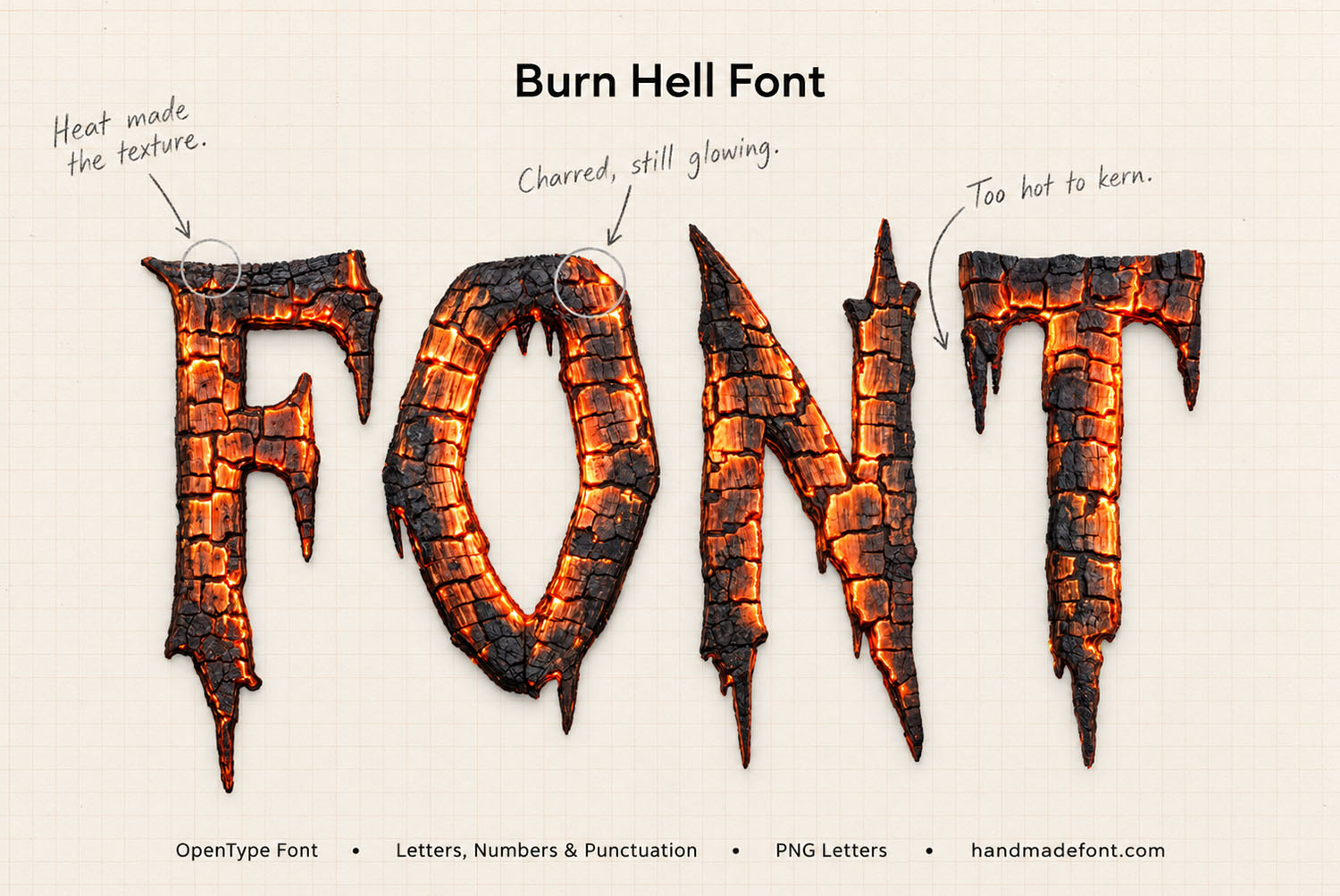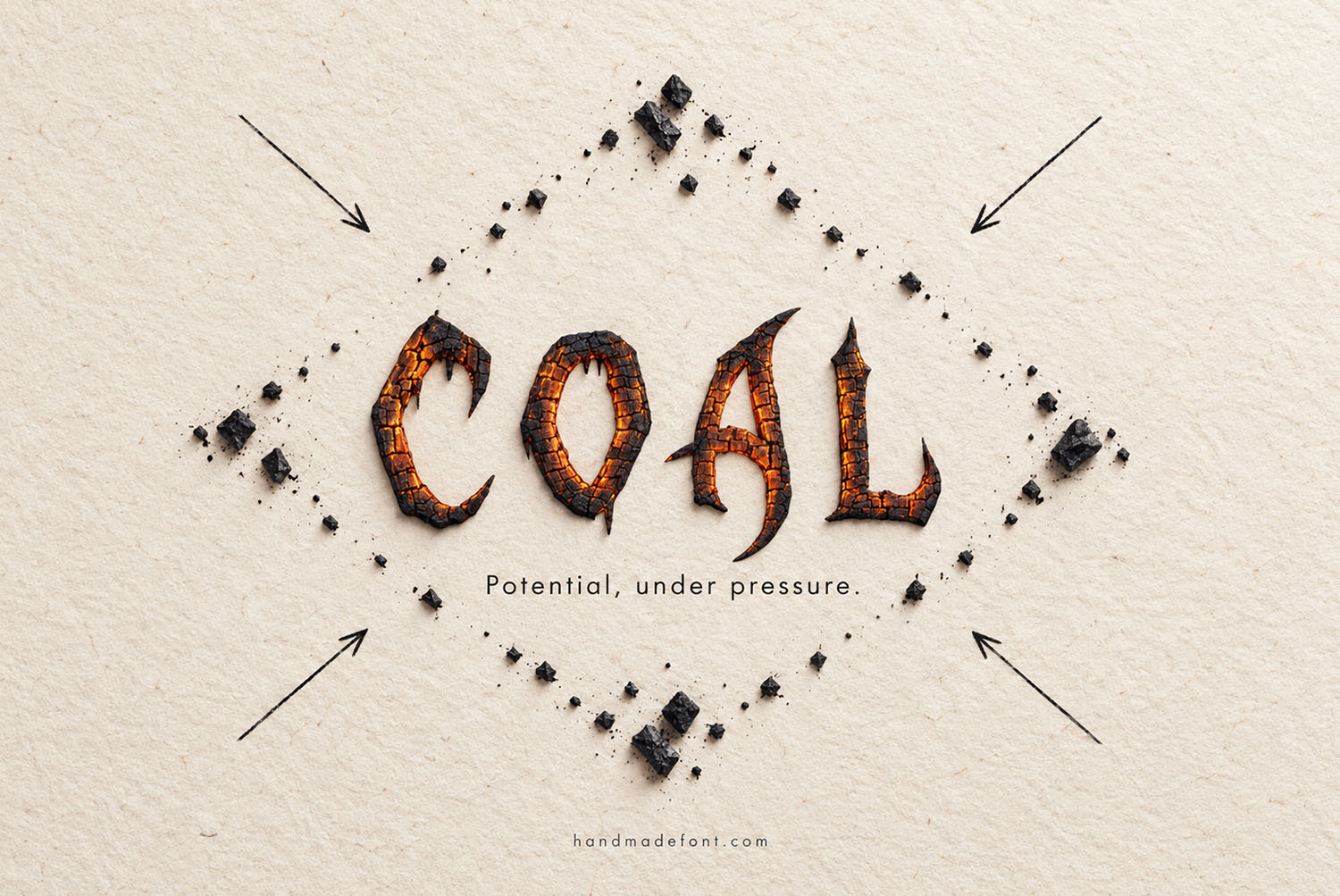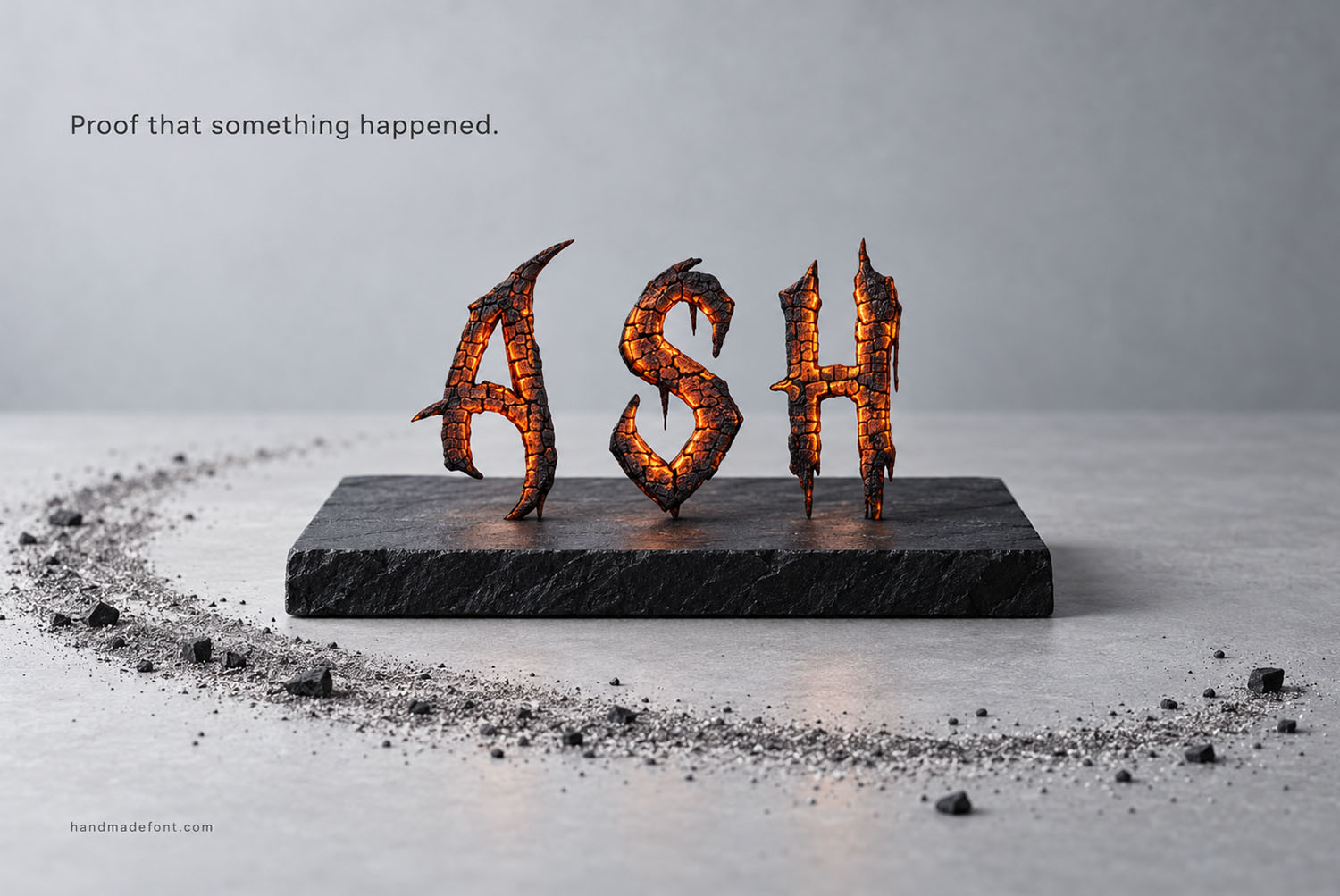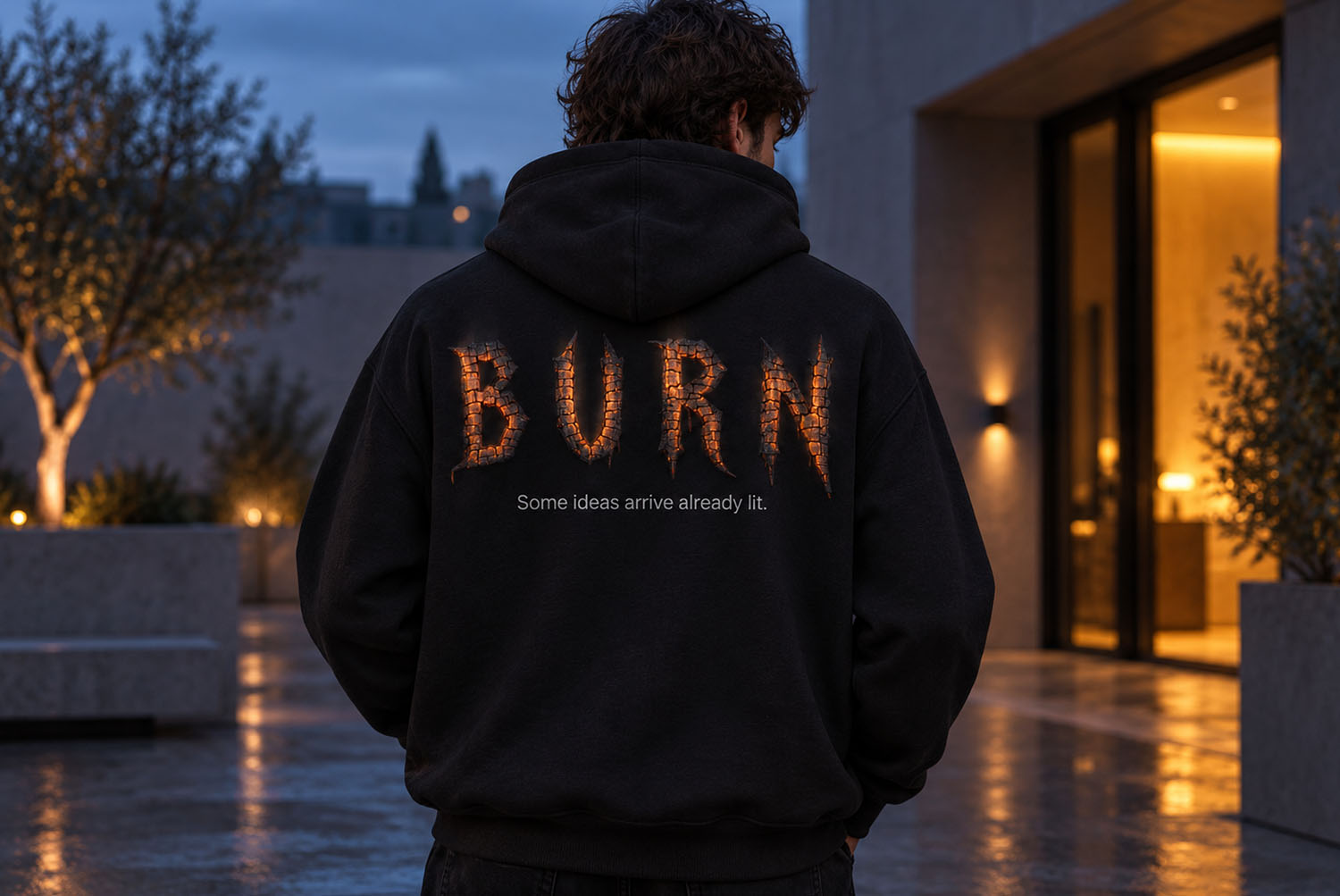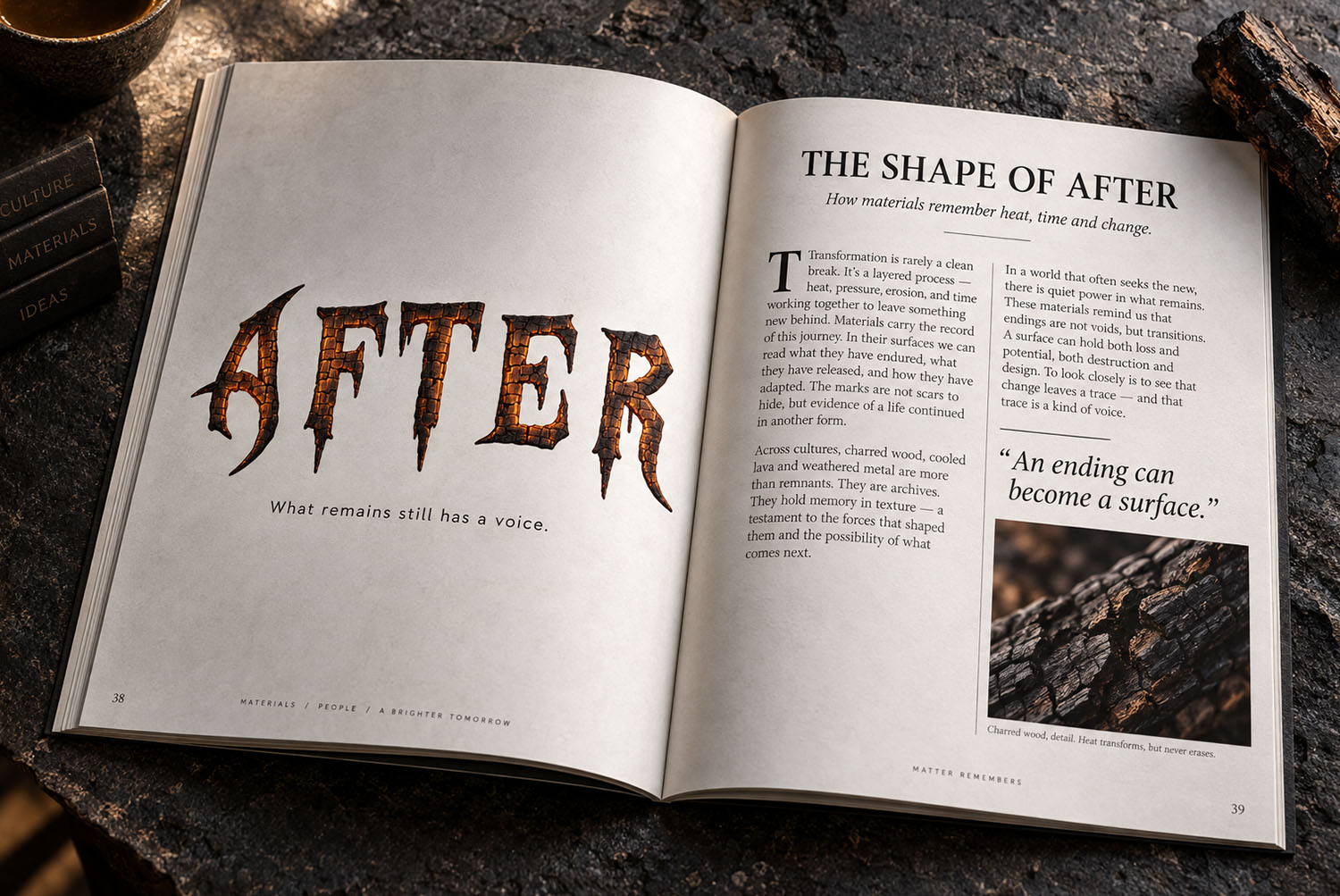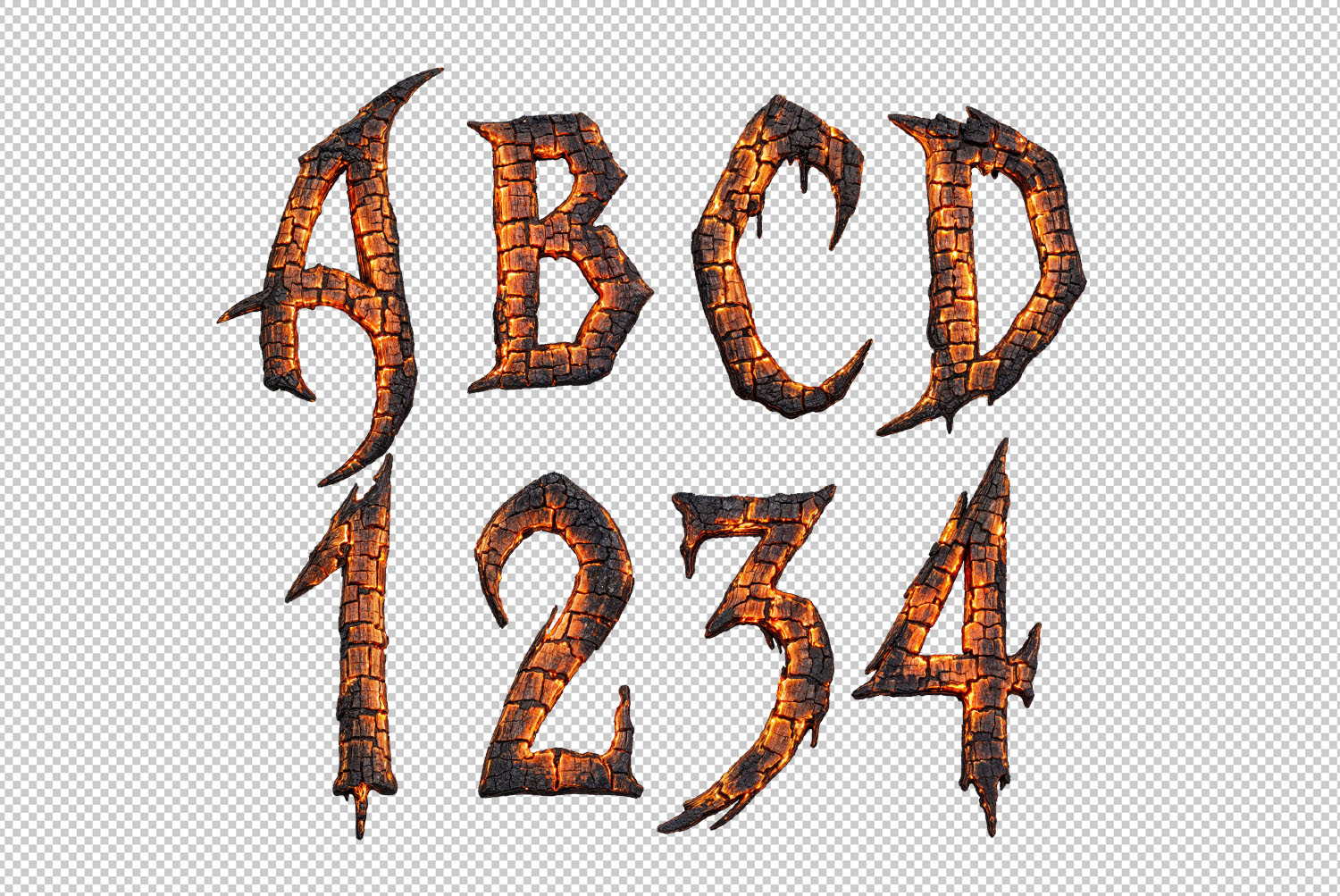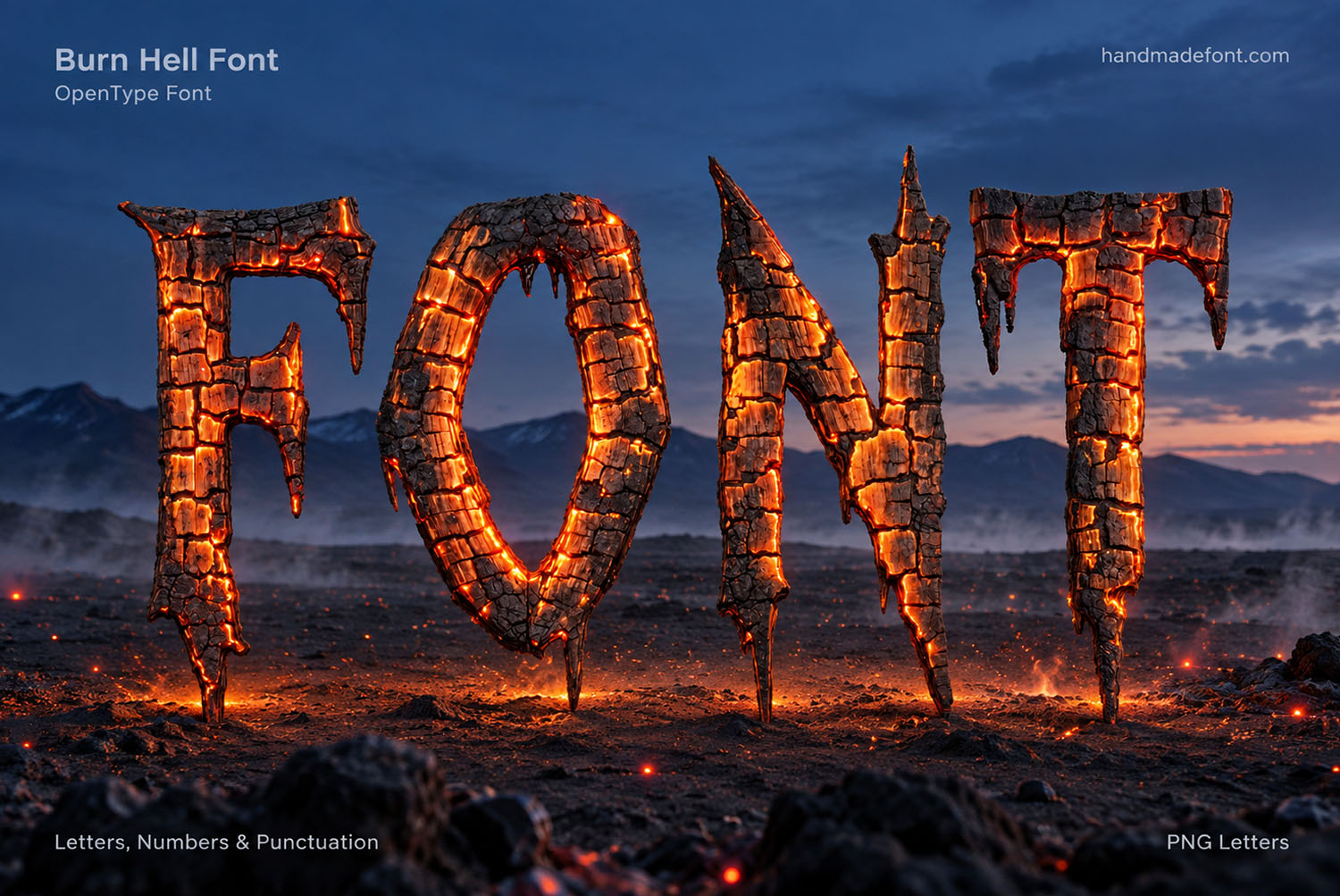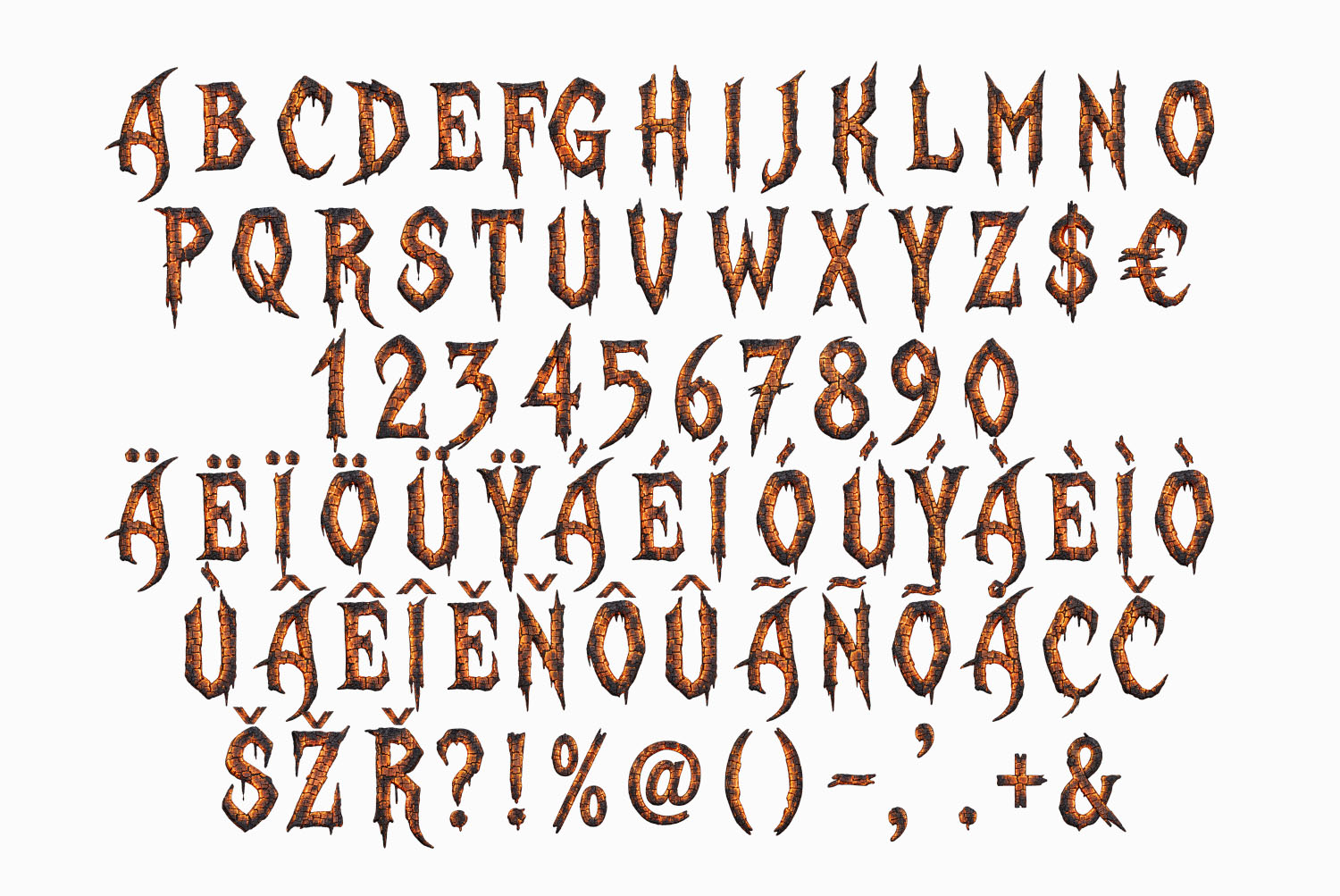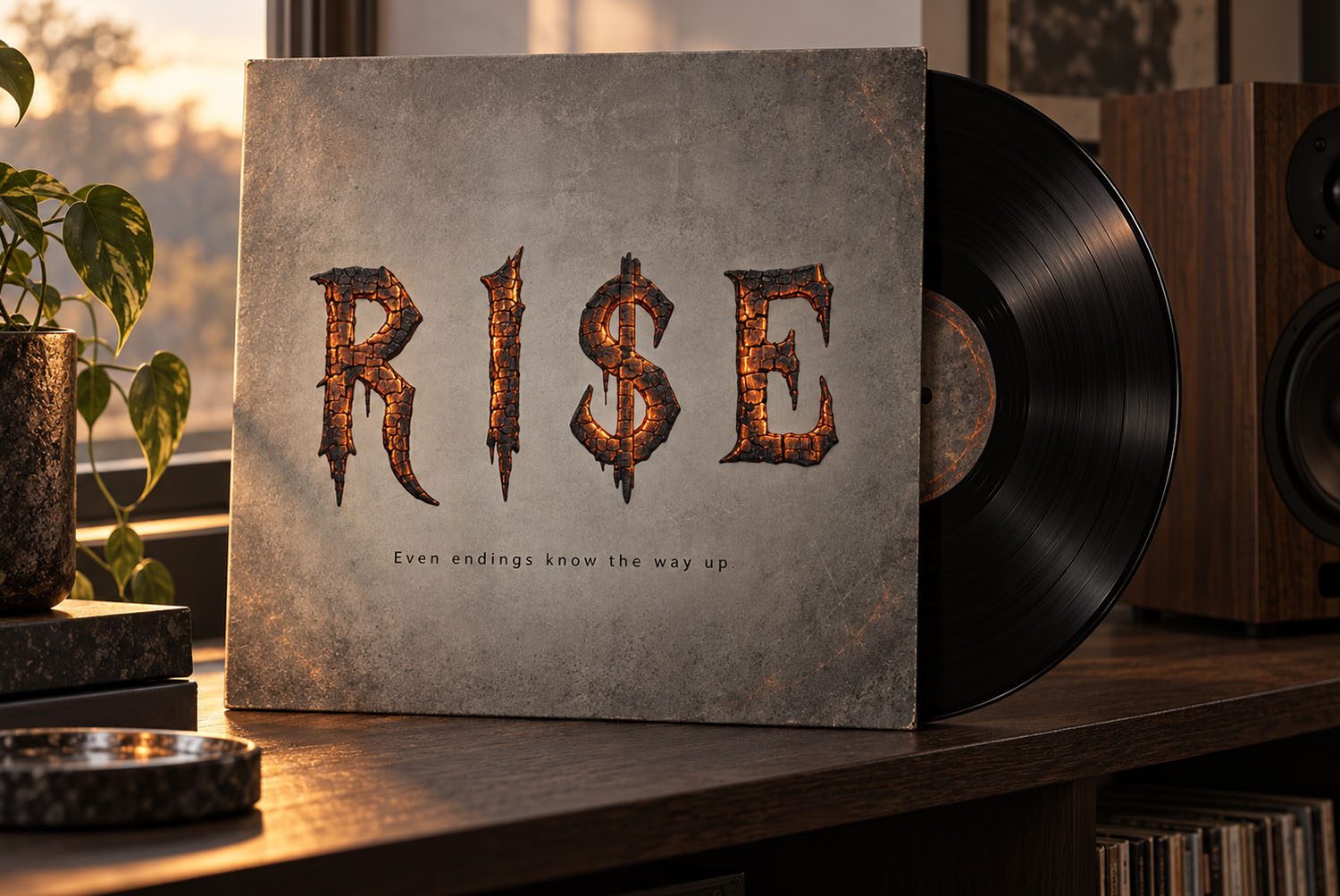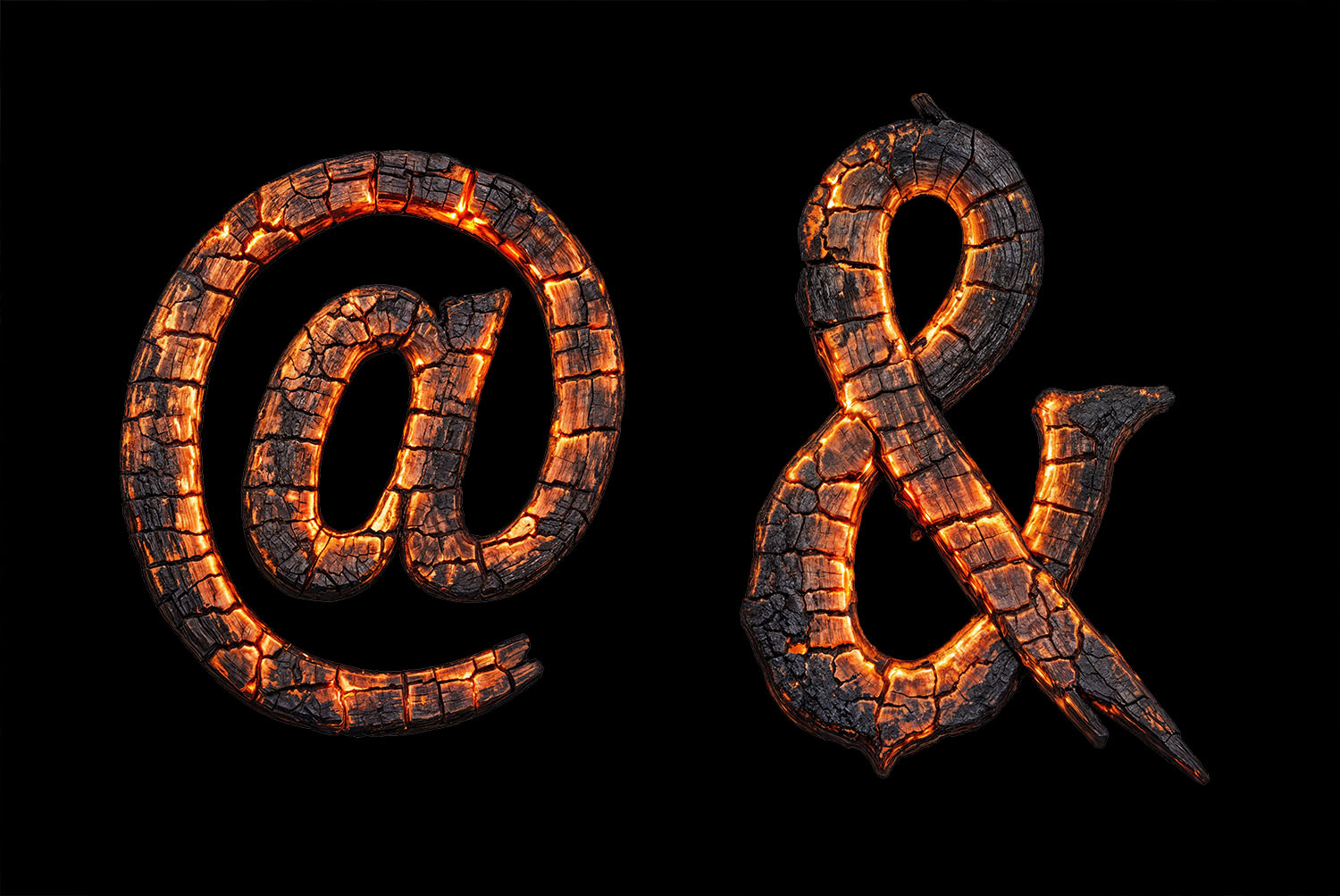
Burn Hell Font. Spiked Charcoal Capitals
Letters dragged out of a fire before they finished burning: black plates cracked across the surface, orange still alive in every seam, and long dripping spikes hanging off each stem. Underneath sits a condensed gothic caps face with a full Latin set, numbers and punctuation included. It arrives as an OTF you type with, plus separate transparent PNG letters.
Burn Hell Font Still Has Heat In It
Every letter looks like it spent a night in a bonfire and lost. The surface has cracked into black plates, because the wood underneath kept shrinking while the outside hardened. Between those plates the orange still shows, so the glyphs read as embers rather than ash. Naturally the spikes matter too: each stem tapers into a wet point that hangs below the baseline. Above all, Burn Hell Font is a capitals face that behaves like something not quite finished burning.
Gothic Bones Under the Char
Underneath the texture sits a condensed gothic display face. The counters stay narrow, while the crossbars sit high and sharp. That skeleton is what keeps a word legible when the surface goes this rough. Because the set runs to full Latin with diacritics, numbers, currency and punctuation, foreign titles set without a fight. Meanwhile the ampersand and the at sign carry the same split bark and the same glowing seams.
Animated letter D of the Burn Hell Font turning against a transparent background
Metal Sleeves and Horror Covers Reach For It First
Record labels get there before anyone else does. In addition, a concrete record sleeve, a black hoodie and a full magazine spread all carry it in the mockups. Since the letters already hold their own light, they work on black and on cream paper alike. Horror covers and fantasy paperbacks suit it for the same reason, naturally. Game studios also want a face like this when one word has to say the whole genre. Meanwhile a festival poster or a tattoo studio window takes it without extra dressing.
Title card spelling FONT in the Burn Hell Font with handwritten notes on cream paper
Complete character set of the Burn Hell Font with currency signs, diacritics and punctuation
Concrete record sleeve reading RISE set in the Burn Hell Font beside a vinyl disc
Ampersand and at sign of the Burn Hell Font glowing against a black background
The word HELL in the Burn Hell Font shown inside a glass display case in a pink room
Framed poster reading HEAT in the Burn Hell Font hanging in a dark living room
The word HOT in the Burn Hell Font on a bright blue background with rising heat lines
The word COLD in the Burn Hell Font standing on a thick block of melting ice
Rainy night storefront window showing TR4CE set in the Burn Hell Font
The word COAL in the Burn Hell Font on pale paper framed by arrows and charcoal fragments
The word ASH in the Burn Hell Font standing on a slate slab inside an arc of scattered ash
Black hoodie printed with the word BURN in the Burn Hell Font, worn outdoors at dusk
Open magazine spread with a headline reading AFTER set in the Burn Hell Font
Letters A to D and numbers 1 to 4 of the Burn Hell Font on a transparent background
The word FONT built as glowing monoliths in the Burn Hell Font on a volcanic plain at dusk